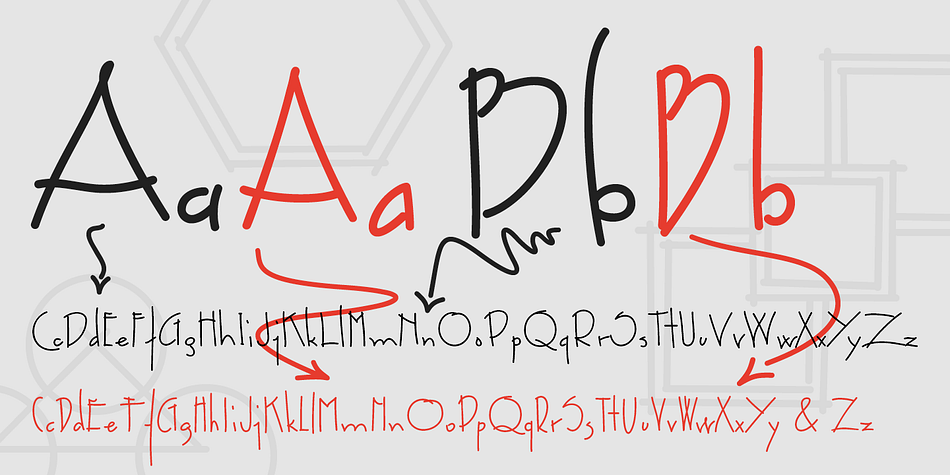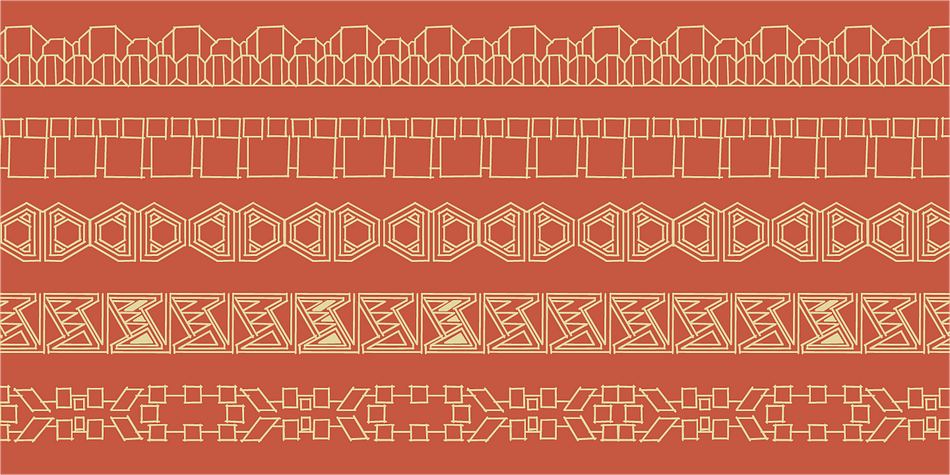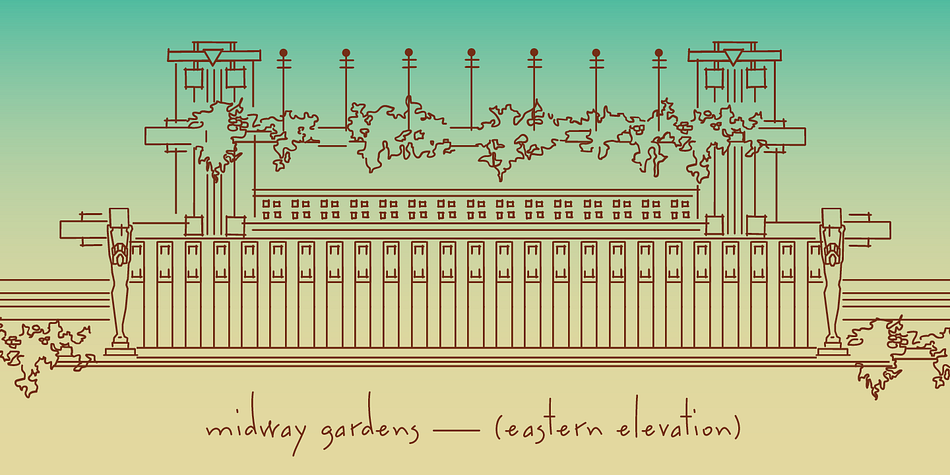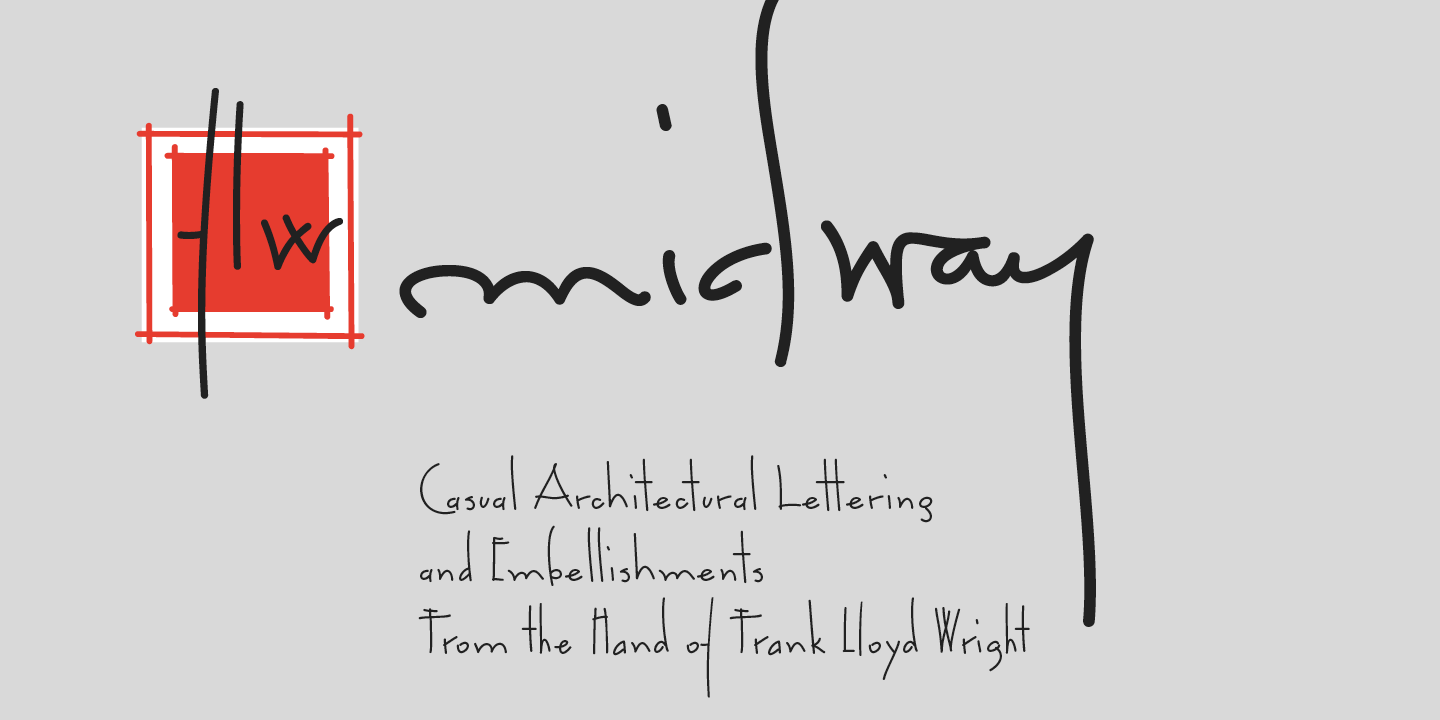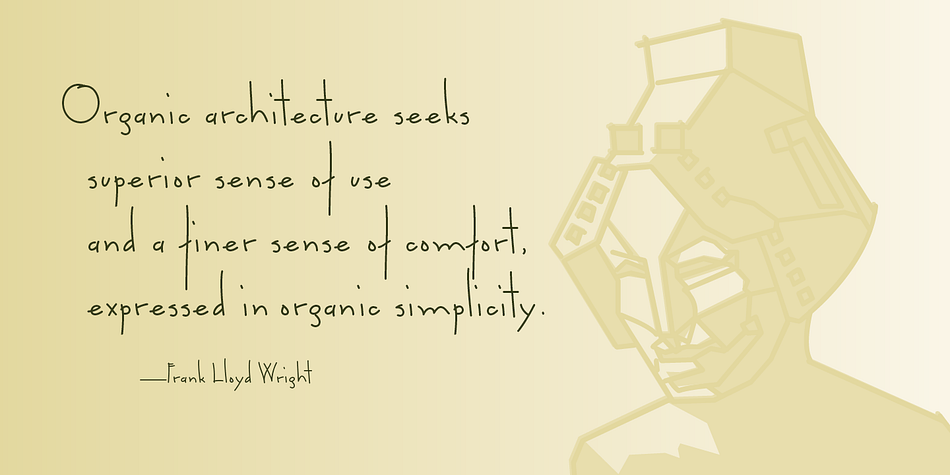
P22 FLW Midway
P22 FLW Midway is a hand drawn and dingbat font family. This typeface has three styles and was published by P22 Type Foundry.
This font is based on the lettering found on the Midway Gardens working drawings. It evokes the personality of Frank Lloyd Wright in a way that complements the other fonts in the P22 FLLW font series. This type of architectural lettering is a bit more casual than standard lettering found on most blueprints.
Midway One and Midway Two can be used interchangeably to give a more naturalistic feeling of hand lettering. Midway Two is slightly narrower in some letters but otherwise it has the same feeling and proportions as Midway One. Midway Ornaments features over 100 decorative border elements that can be combined in many ways for surprising and effective decorative motifs.